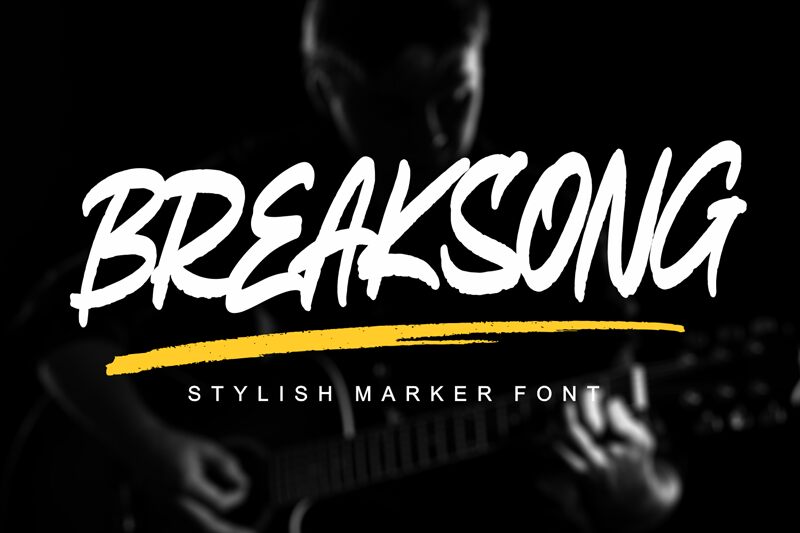
BREAKSONG
Introducing BREAKSONG, a semi-light brush font designed by Mozatype. Its unique and versatile style makes it perfect for projects needing a creative touch - from invitations, logos, branding and packaging to posters and magazine layouts. With its delicate yet bold strokes, BREAKSONG is sure to add character and charm!